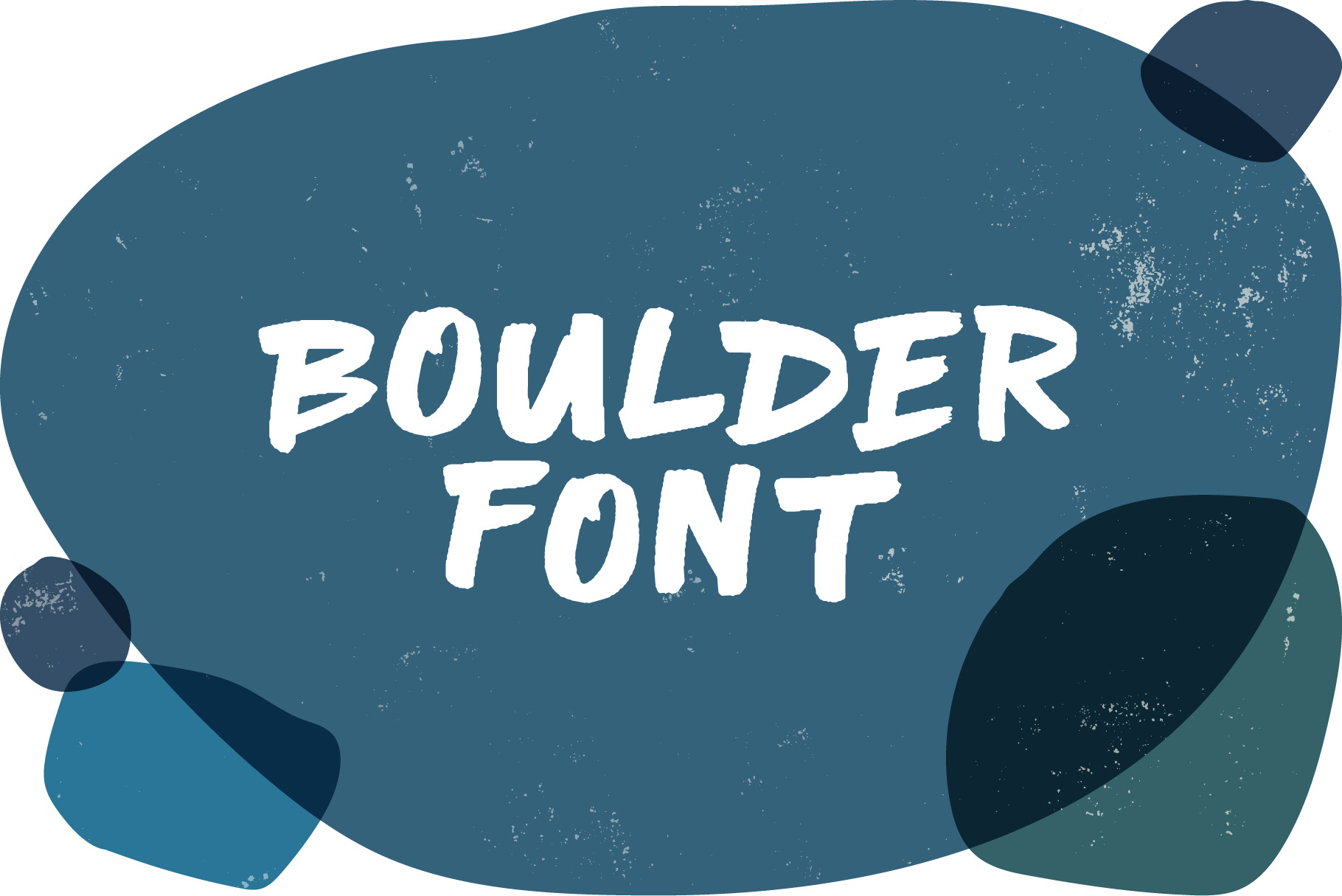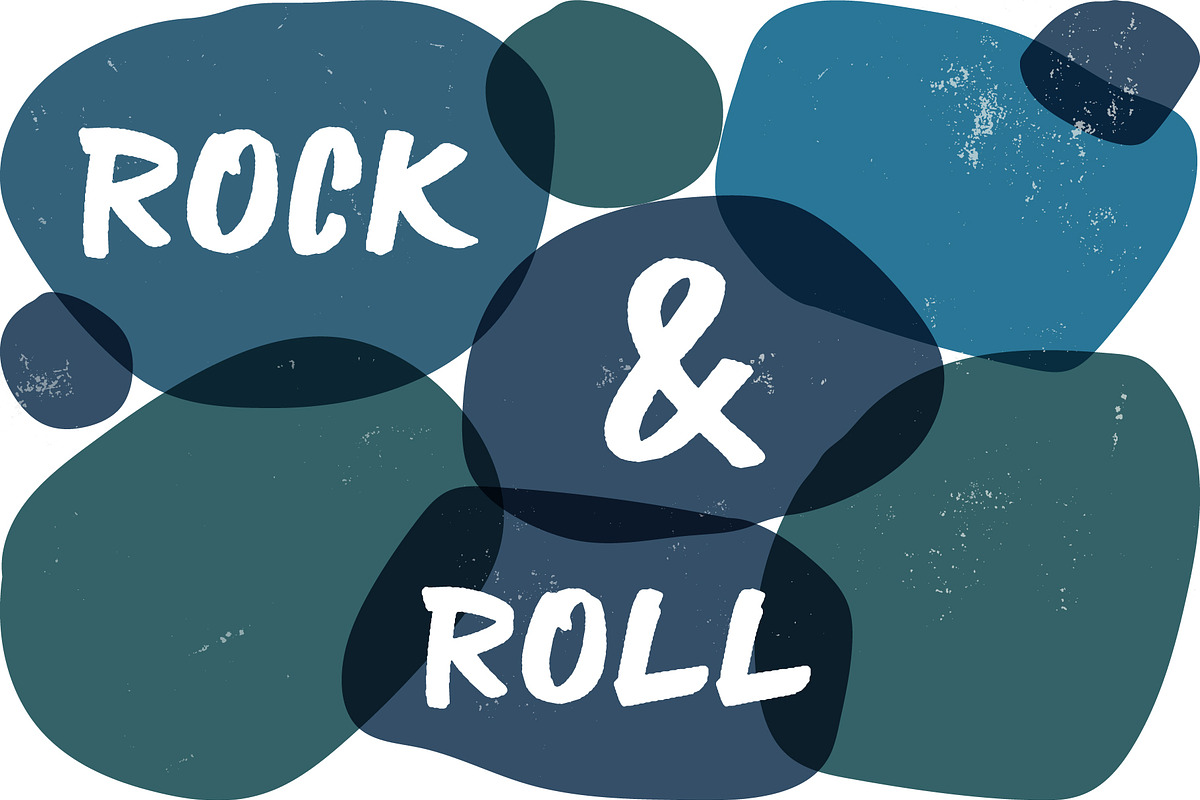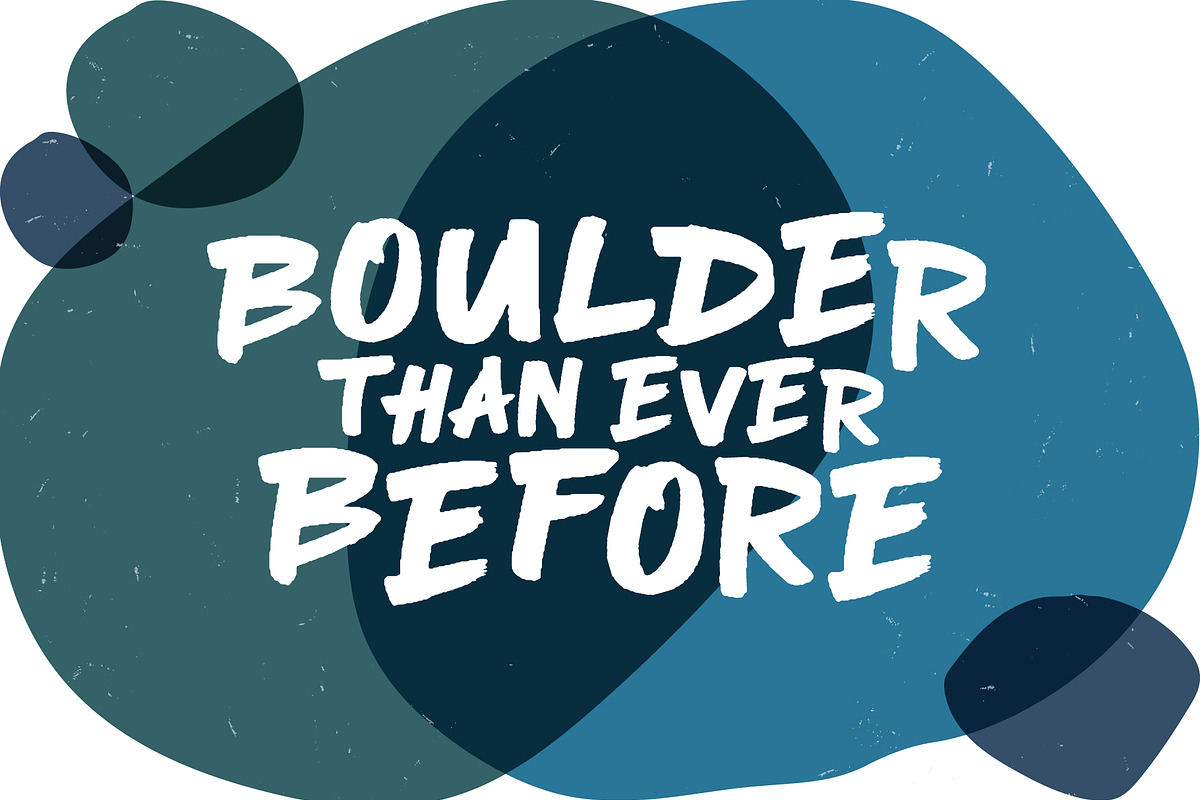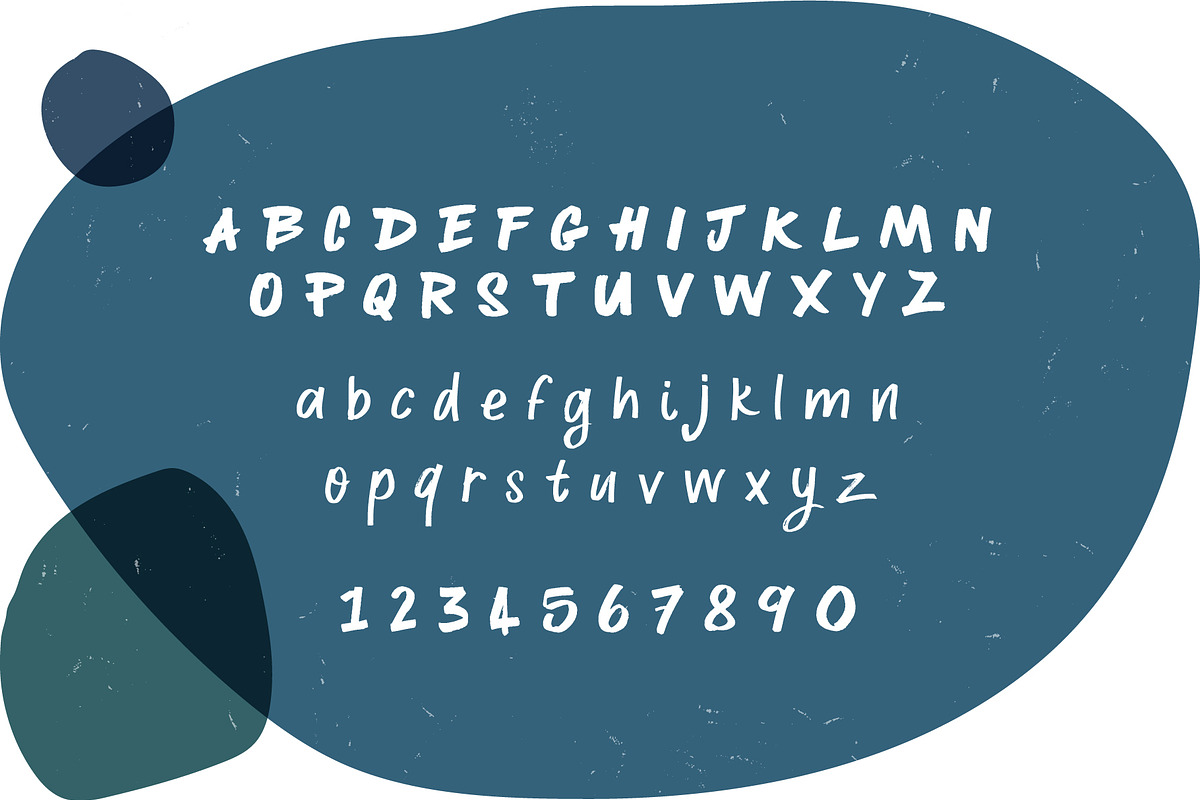
BOULDER - Font
BOULDER is a chunky bold typeface perfect for any fun quirky design work! This font can be used for anything such as t-shirt designs, phone cases, greeting cards, invitations, mugs and so much more! Get creative!